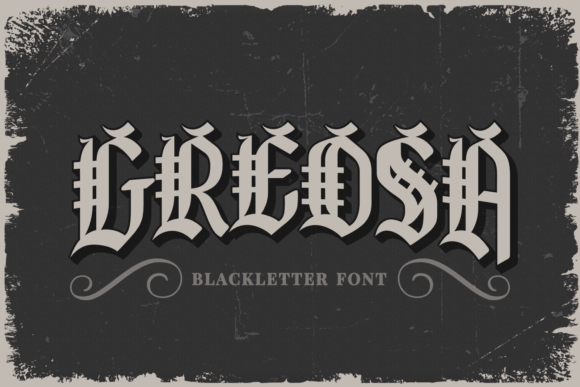
The Perfect Blend of Vintage Charm and Modern Appeal
As a designer, there’s nothing quite like the thrill of stumbling upon a new font that sparks your creativity. For me, it was the moment I laid eyes on the Greosa Font – a classic blackletter font that exudes a vintage charm like no other. Its unique blend of elegance and playfulness has a way of transporting me to a bygone era, yet still feels remarkably relevant in today’s design landscape.
With its versatility and timeless appeal, the Greosa Font is the perfect addition to any designer’s toolkit. Whether you’re crafting posters, t-shirts, or product packaging, this captivating font is sure to elevate your designs and leave a lasting impression on your audience. As a valuable resource for designers, the Greosa Font offers a wealth of creative possibilities, from headers and headlines to book covers and more.
Key Features of Greosa Font
- Unique Characteristics: Greosa Font features a distinctive, elegant design with subtle flair and ornate details, making it suitable for use in luxury, high-end, and creative applications.
Greosa Font Review
First off, let me say that I’m a big fan of display fonts, and Greosa is no exception. The font has a very unique and ✨ elegant design that’s perfect for titles, headings, and other display text. The font’s ✨ intricate details and flourishes add a touch of sophistication and luxury to any design.
One of the things that really stands out about Greosa is its ✨ high-quality rendering. The font looks great at any size, from large display headings to smaller body text. It’s also worth noting that Greosa has a ✨ wide range of weights, from light to bold, which makes it easy to customize to fit your design needs.
- ⚠️ Limited support for certain languages: Greosa may not be suitable for designs that require a lot of non-English text, as it may not have the necessary glyphs or character sets.
- ⚠️ Can be difficult to read in certain contexts: While Greosa looks great in most situations, it can be a bit difficult to read in very small sizes or in designs with a lot of clutter.
Overall, I think Greosa is a great addition to any designer’s toolkit. While it may have some limitations, its unique design and high-quality rendering make it a great choice for titles, headings, and other display text. With a little bit of care and attention to design context, Greosa can really help take your designs to the next level.
Tips for Getting the Most Out of Greosa Font
Use Greosa Font for creative and modern designs. It pairs well with bold and bright colors. Experiment with different font sizes and styles to create a unique look.
Greosa Font is suitable for:
- Social media graphics
- Posters and flyers